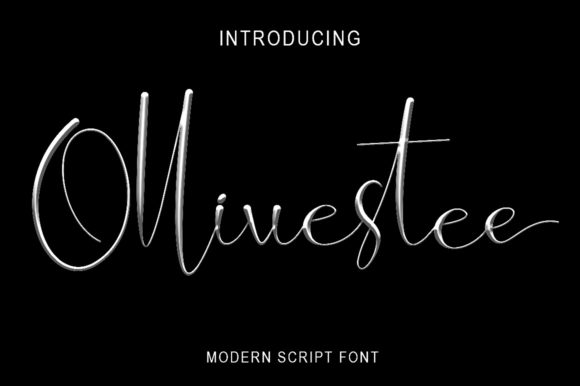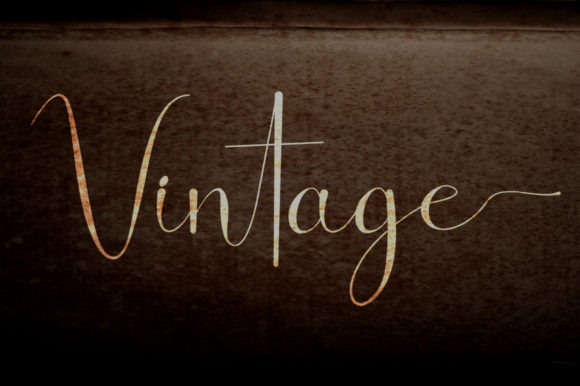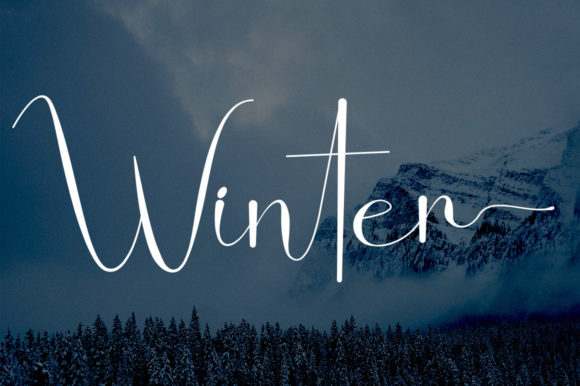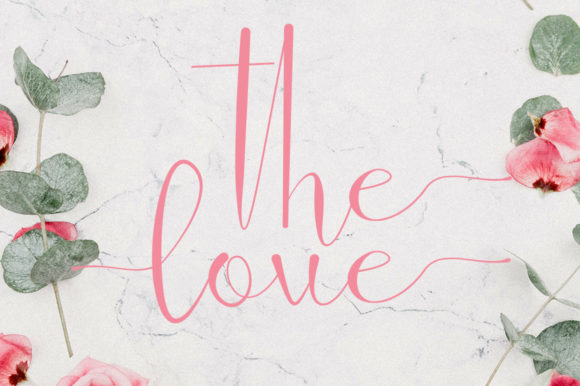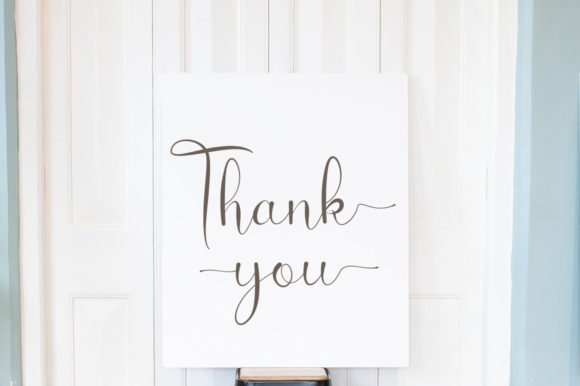
Ollivestee Font
Ollivestee is a modern script font that seems to be flowing endlessly. It embodies elegance, charm, sophistication, and it is the perfect choice for exquisite projects that need top typography! This font is PUA encoded, which means you can access all of the glyphs and swashes with ease!